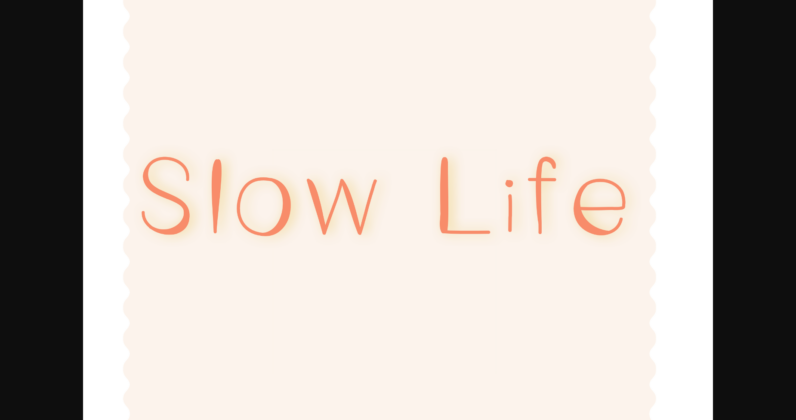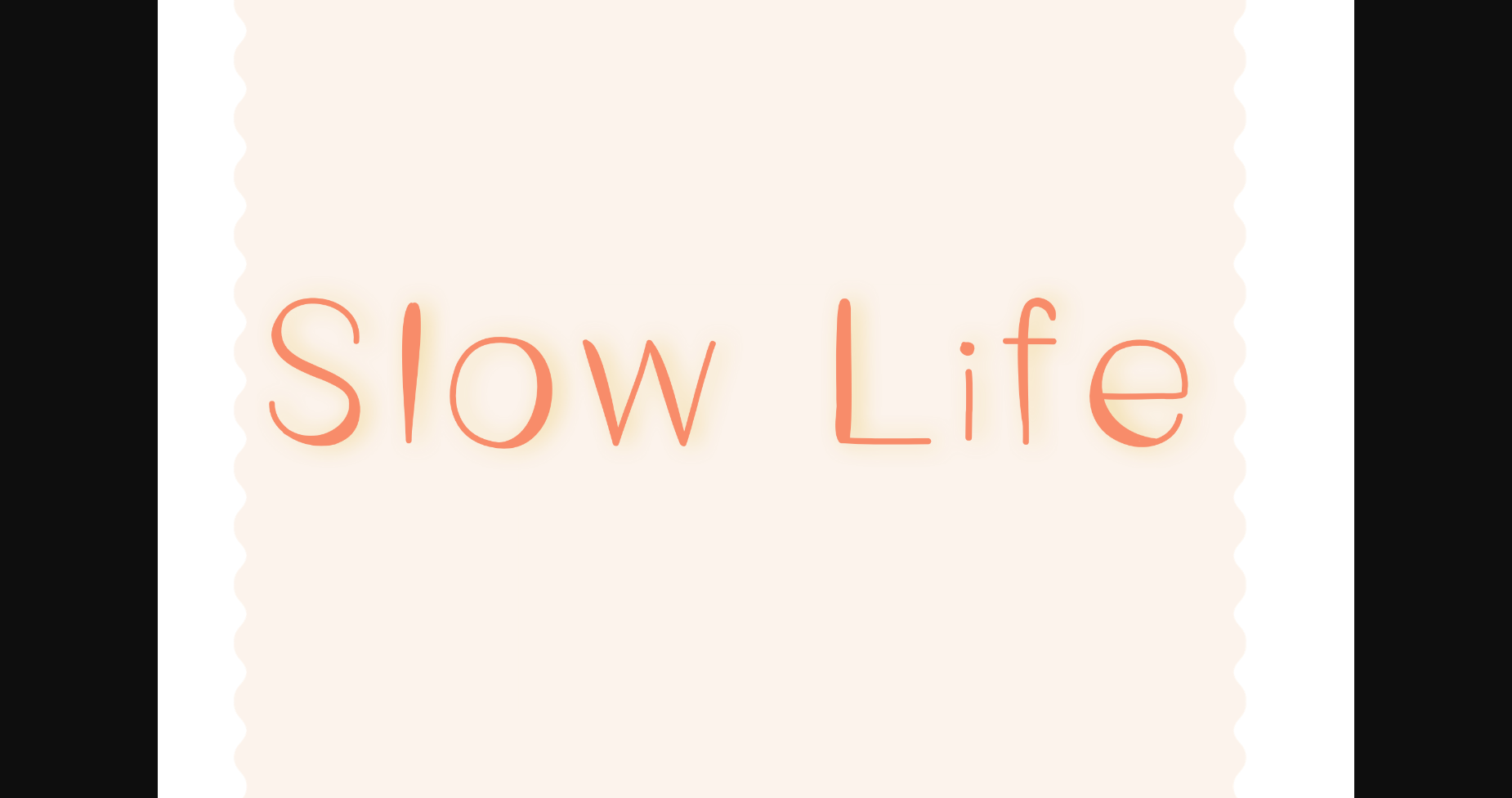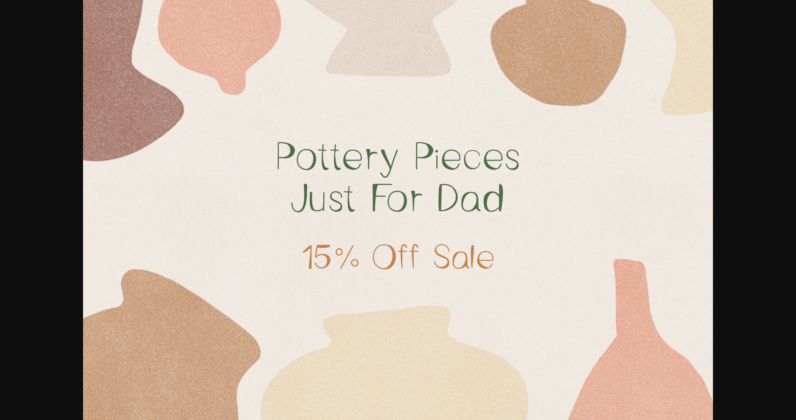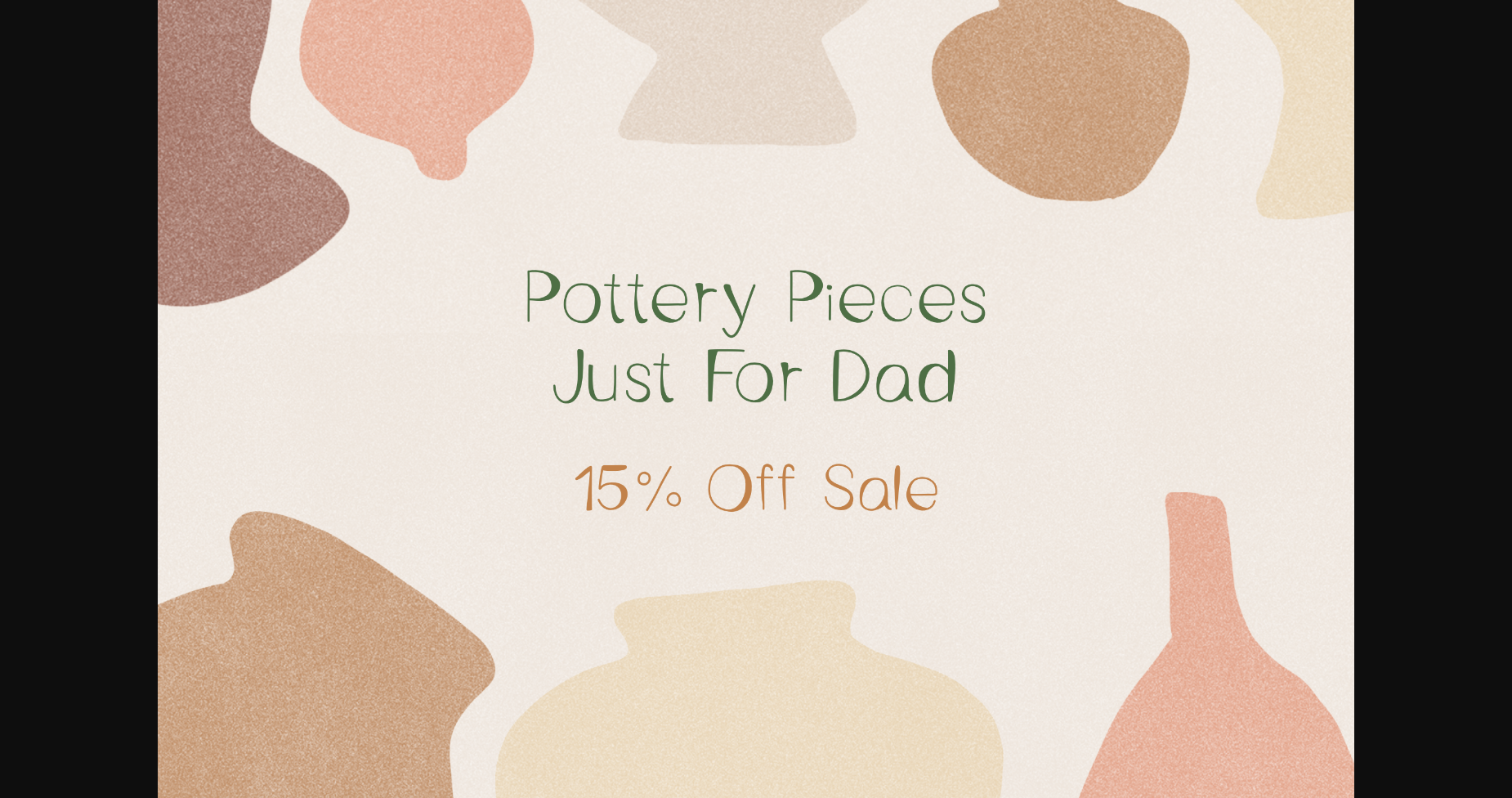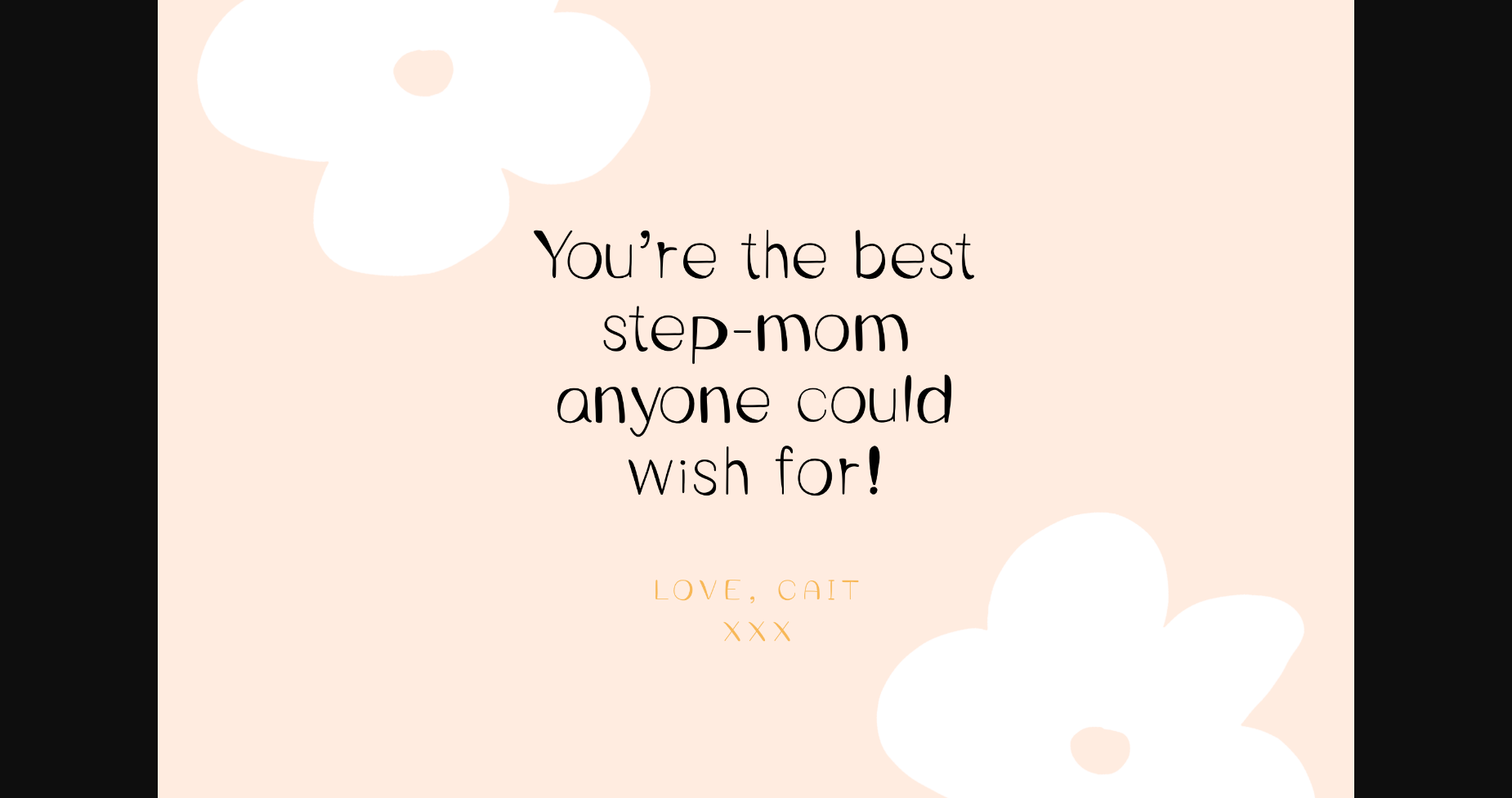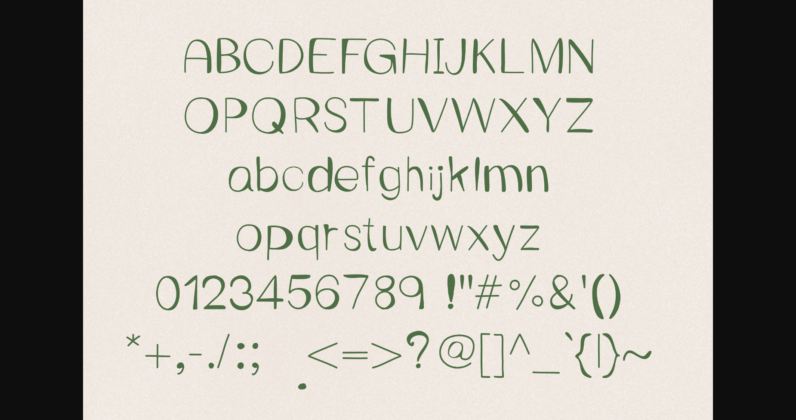
Slow Life Font
About Slow Life Font
Slow Life is a simple and minimalistic sans serif font. Extremely versatile, this design is perfect for Cricut projects, shirt designs, creating SVG files, logos, branding, business cards, greeting cards, posters, magazines, social media, planner prints, and more!